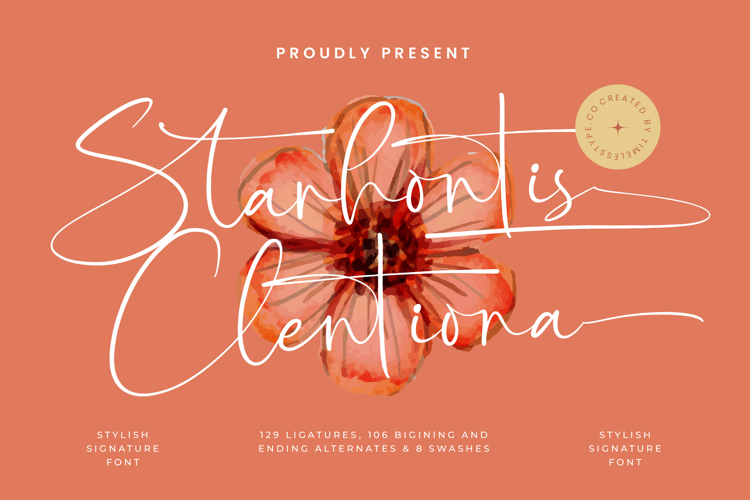
Starhontis Clentiona - Stylish Signature Font
Starhontis Clentiona is a stylish signature font crafted to combine handwritten elegance with modern sophistication. Its long, fluid strokes and refined ligatures make it a perfect typeface for projects that require both character and professional polish. With 129 ligatures, 106 beginning and ending alternates, and 8 swashes, this font offers limitless flexibility for custom lettering and creative compositions.
This typeface is outstanding in branding. Ideal for logos, boutique shops, luxury goods, fashion labels, and monograms, Starhontis Clentiona conveys exclusivity and charm. Its signature handwriting ensures that branding projects stand out with originality and elegance, creating a impression.
In editorial and publishing, the font brings personality and refinement. Magazines, book covers, lifestyle features, and invitations gain artistic flair with its stylish rhythm. It creates editorial layouts that merge sophistication with legibility, giving text a fresh and engaging look.
For web typography, Starhontis Clentiona adapts smoothly across blogs, websites, portfolios, and social media platforms. Its handwritten style ensures that digital media projects communicate authenticity, creativity, and sophistication, making it especially effective for influencers and lifestyle brands.
The typeface also works beautifully in advertising and marketing. From posters and business cards to promotional campaigns and product packaging, it adds a handwritten touch that is elegant and striking. It ensures advertising maintains impact while remaining refined and stylish.
Starhontis Clentiona is a natural choice for wedding and event stationery. Its graceful swashes and alternates transform invitations, greeting cards, signage, and decorative stationery into keepsakes. It’s ideal for wedding branding and romantic events that demand intimacy and elegance.
In packaging design, the font adds sophistication and uniqueness. Perfect for cosmetics, gourmet foods, jewelry, and artisan goods, it elevates packaging with a handcrafted yet luxurious feel. It ensures that packaging communicates authenticity, exclusivity, and high quality.